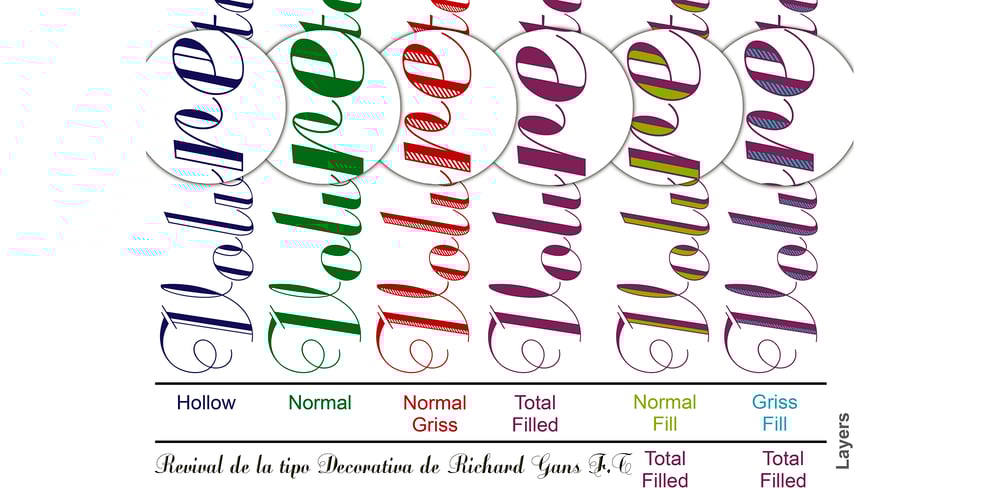
Volvoreta RG LG Font Family was designed by Manuel Lage, Richard Gans and published by LGF Fonts. Volvoreta RG LG contains 12 styles and family package options. Bolboreta Hollow is a revival of “Decorativa” font of Richard Gans Foundry.We’ve expanded the family with padded versions, striped versions (gray on other Gans fonts, in keeping with the days of lead fonts), and those same fills in separate font files, for graphic designer layered play. In addition to Bold versions.